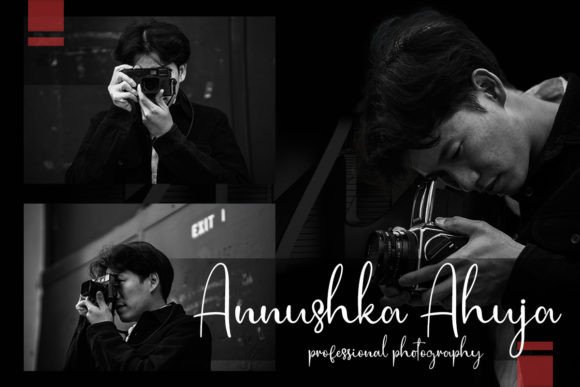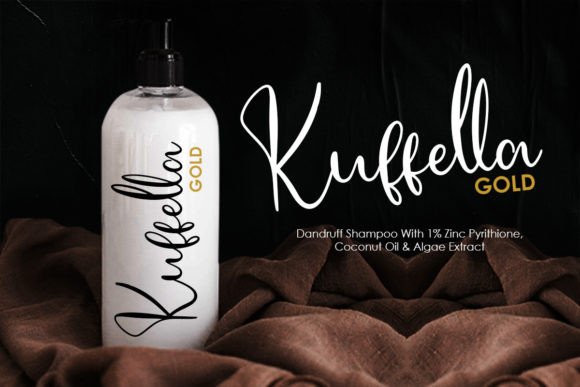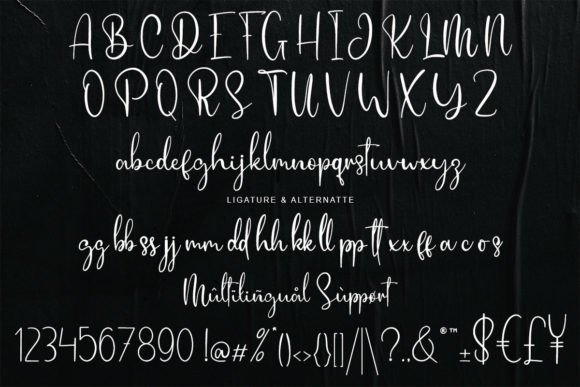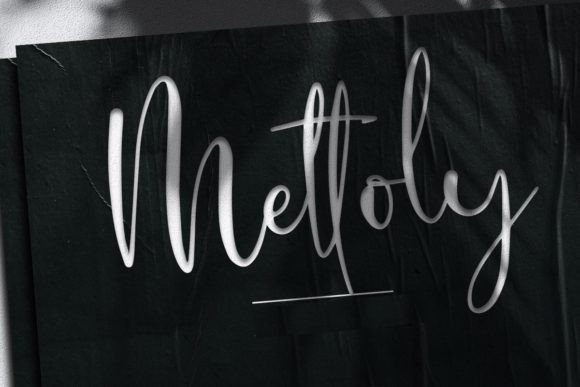
Introduction to Martello Geoffry Font
Martello Geoffry is a dazzling script font.
This font is neatly crafted and highly detailed Whatever the topic, this font will be a wonderful asset to your font library, as it has the potential to enhance any creation.
Key Features of Martello Geoffry Font